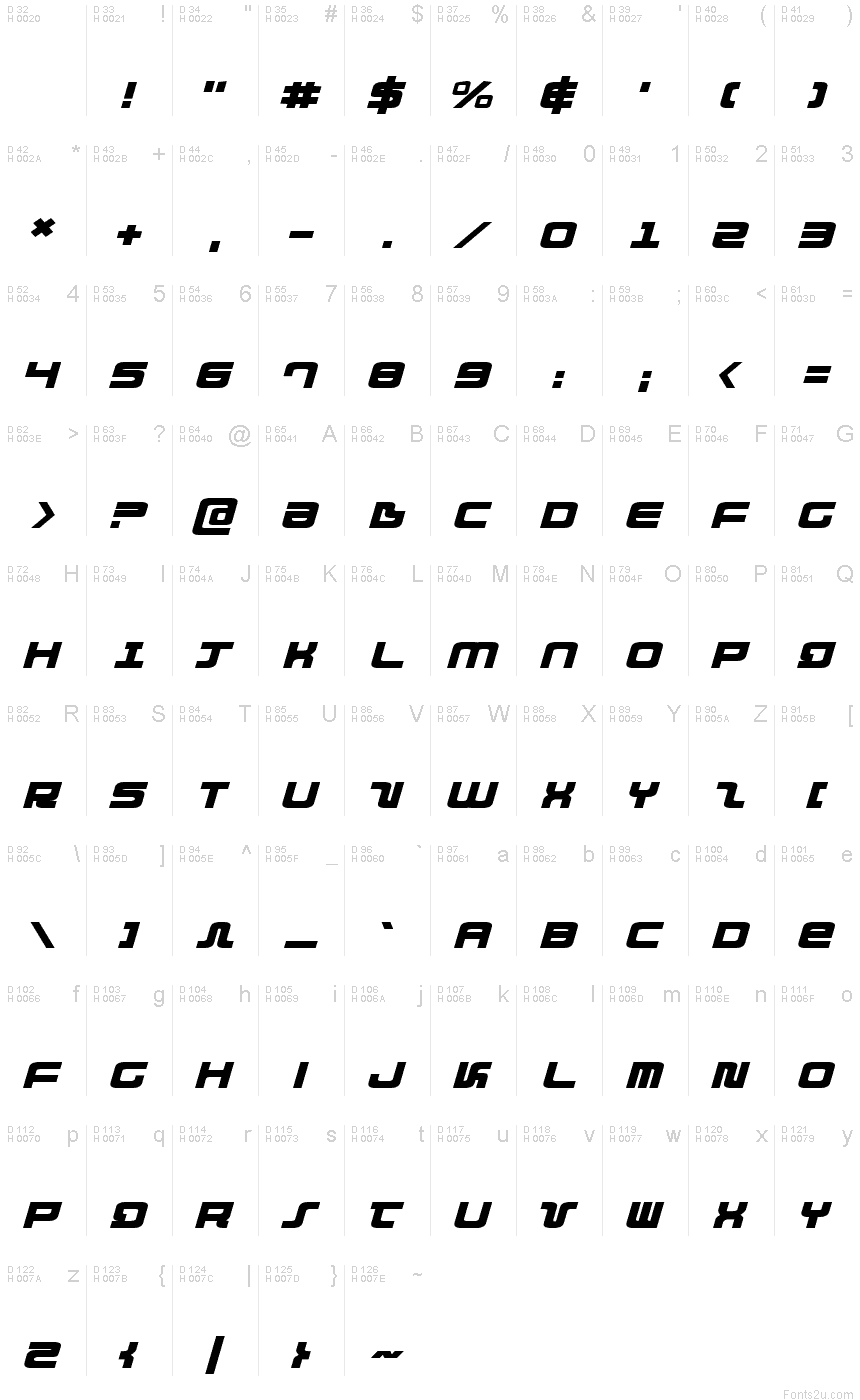
Direktor Expanded Italic, from Iconian Fonts, is a free futuristic display font with a fast, sci-fi slant. Its letters feel wide and aerodynamic, cut with rounded corners and sharp notches that make the whole design read like motion graphics from a sleek retro-future world.
That makes it a natural fit for game logos, tech event posters, album covers, title cards, and packaging that wants a synthetic, high-speed tone. As a free font, it works best in short display settings where those broad, leaning shapes and carved-out details can do the talking without needing much else.
Direktor Expanded Italic (2008) by Iconian Fonts is a free display font in an expanded italic style.